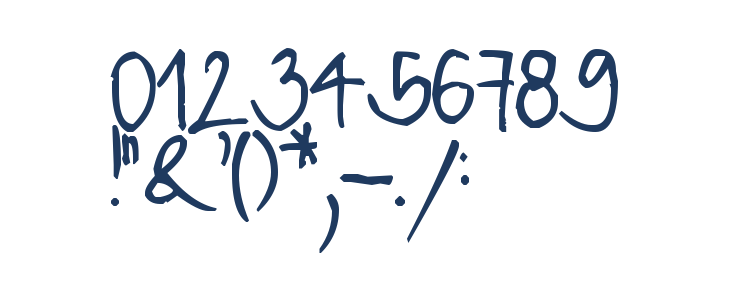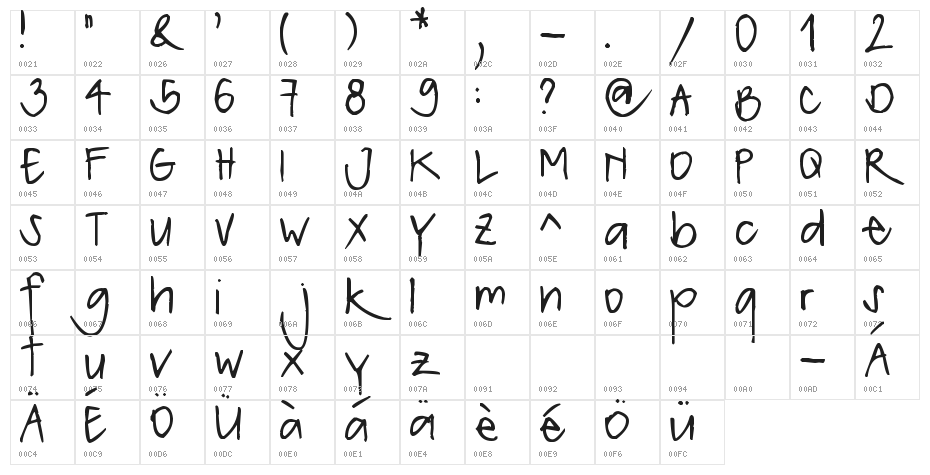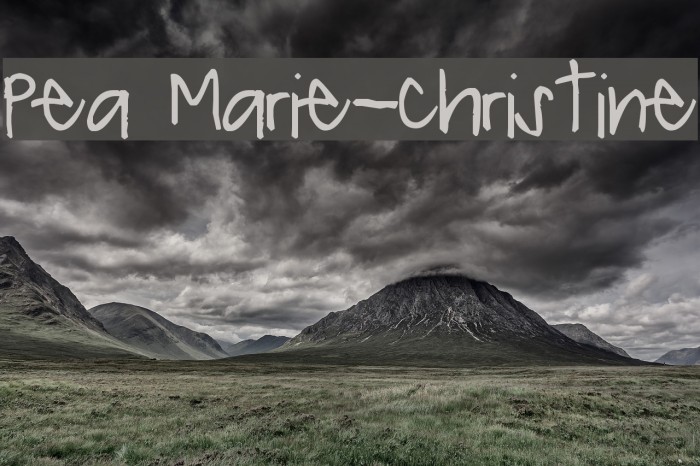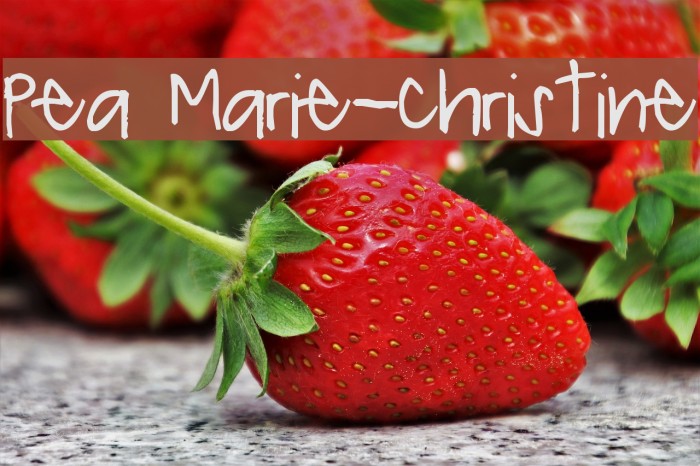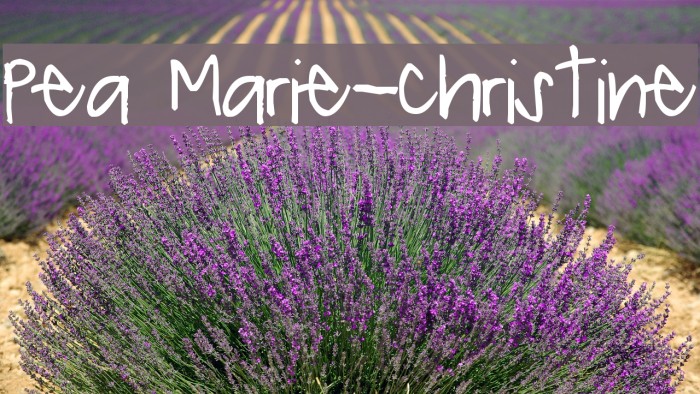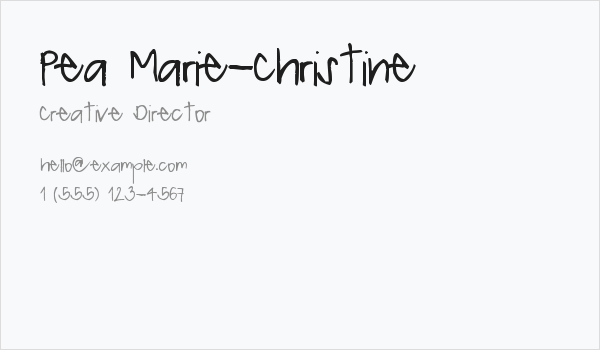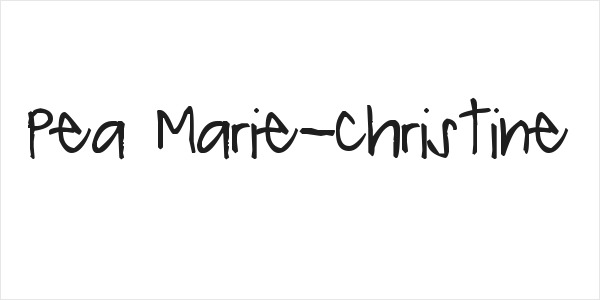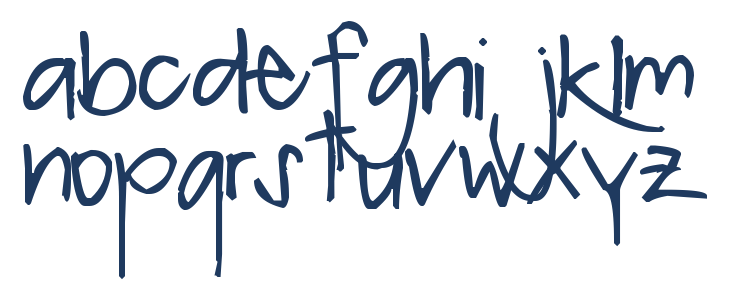
Pea Marie-Christine Font
Pea Marie-Christine Description
This font exudes a playful and casual handwritten style, characterized by its irregular and organic strokes. The letters have a whimsical, free-flowing appearance, with varying heights and angles that give it a lively and informal feel. The uppercase letters are bold and slightly uneven, while the lowercase letters maintain a consistent, yet quirky charm. Numbers and special characters follow the same playful aesthetic, making the font versatile for creative projects. Its unique style is perfect for adding a personal touch to any design.
| Proposed Projects | Ideal for greeting cards, personal blogs, children's books, and creative branding projects. |